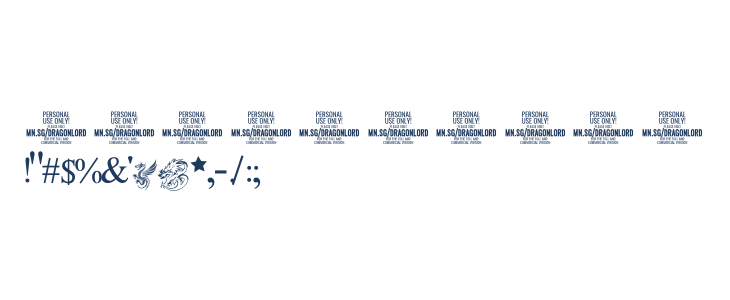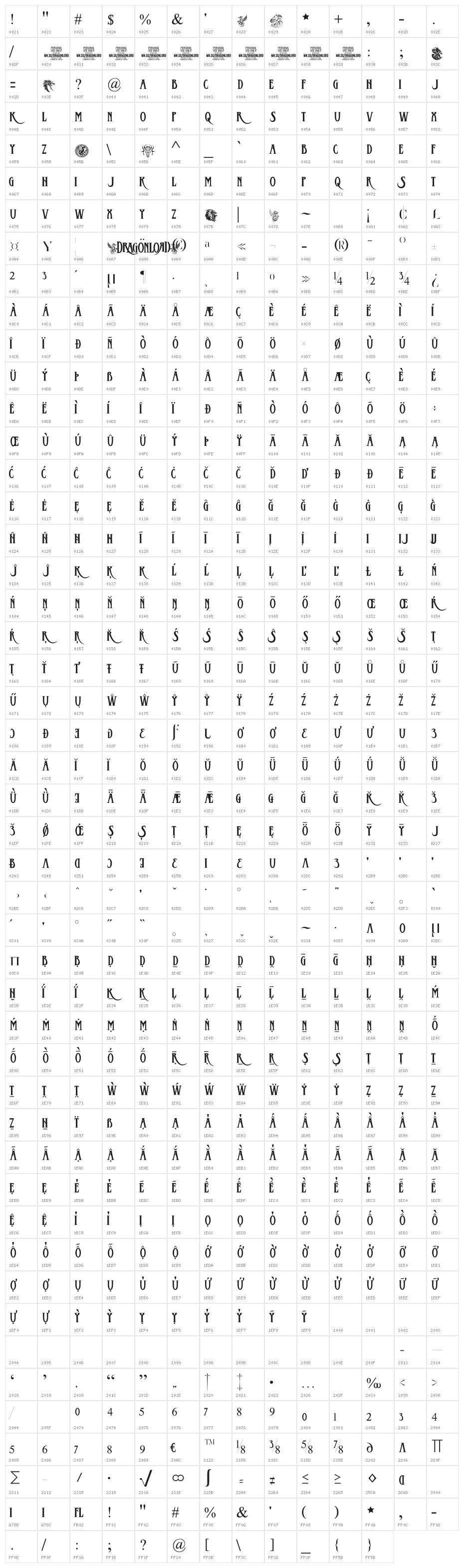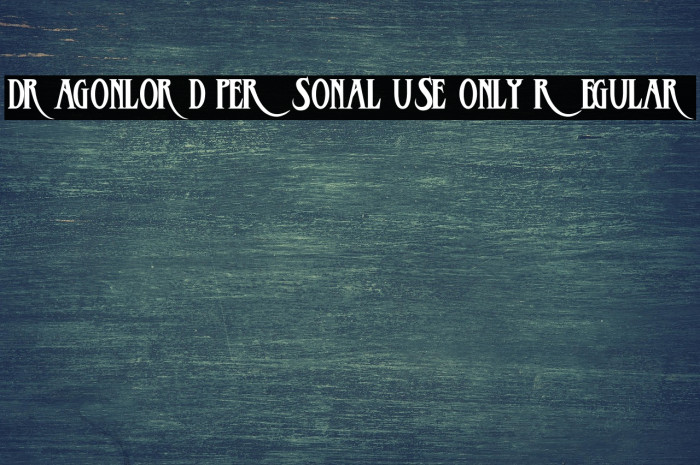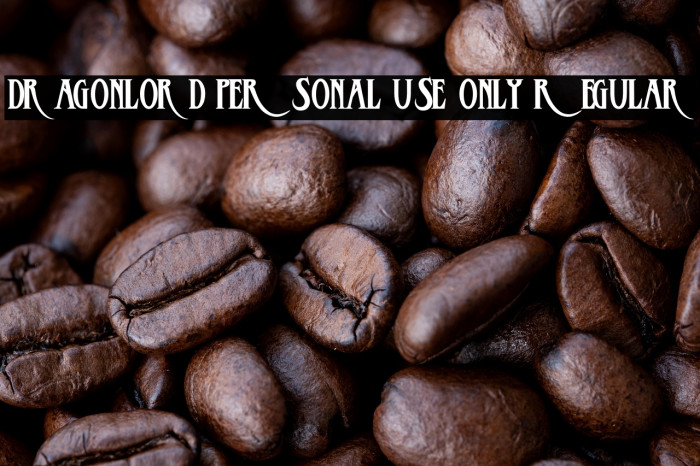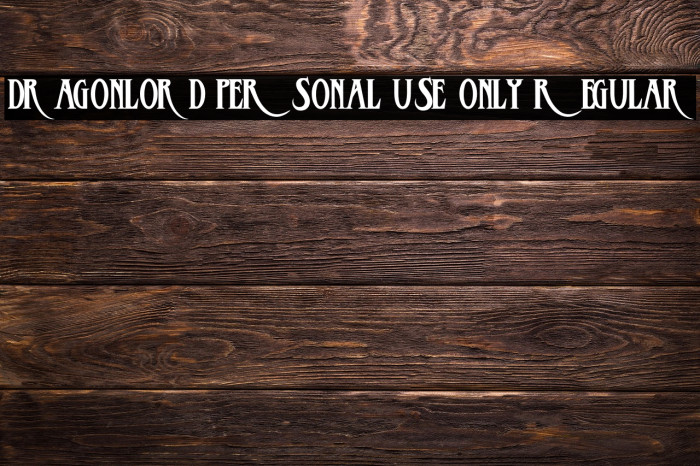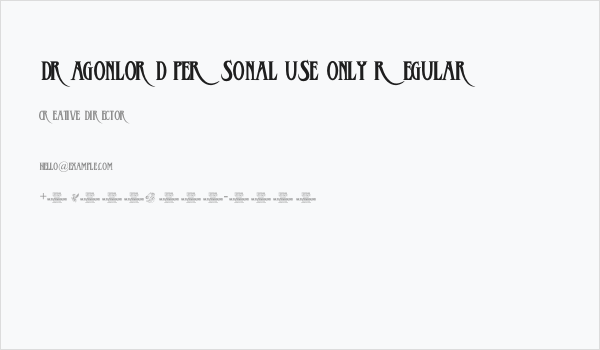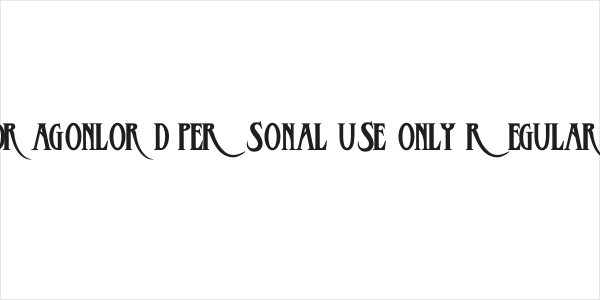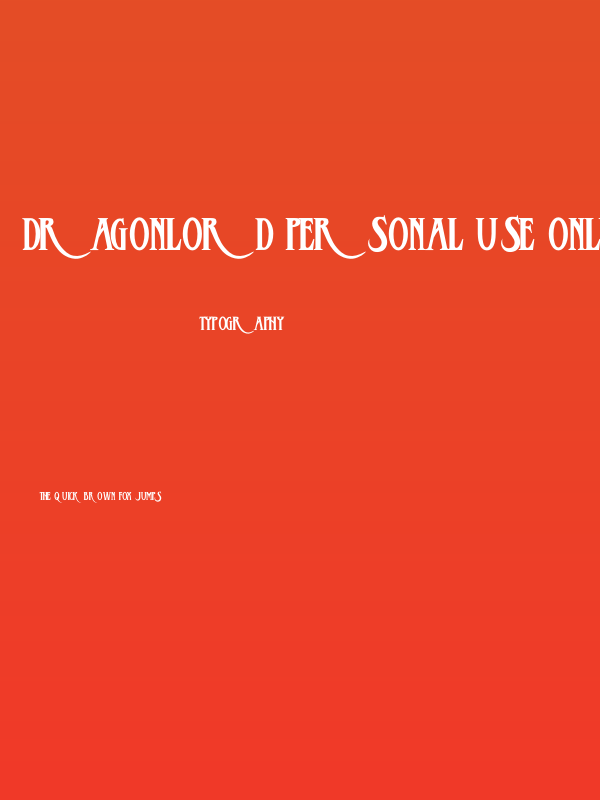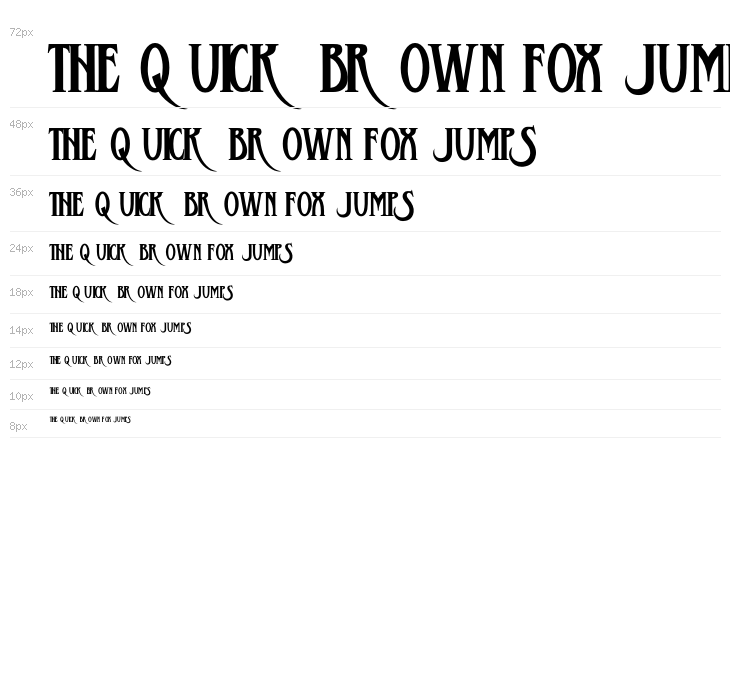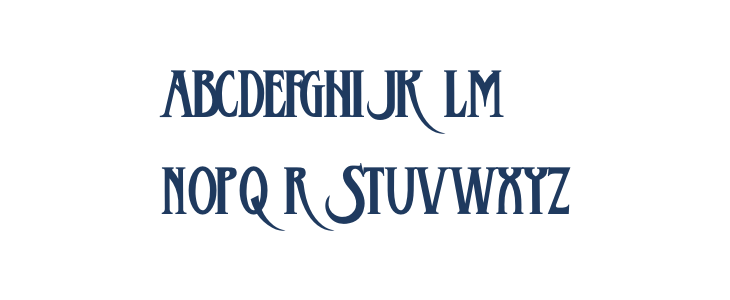
Dragonlord PERSONAL USE ONLY Regular Font
Dragonlord PERSONAL USE ONLY Regular Description
This font features a bold and dramatic style with sharp, angular serifs and a medieval flair. The uppercase letters are particularly striking, with elongated strokes and a sense of movement, reminiscent of calligraphic or gothic influences. The lowercase letters maintain the same boldness, offering a cohesive look throughout. Special characters, including punctuation and symbols, are designed with the same attention to detail, ensuring they match the overall aesthetic. This font is ideal for projects that require a touch of fantasy or historical elegance.
| Overall Style | Medieval, Decorative |
| Proposed Projects | Ideal for fantasy book covers, medieval-themed events, or role-playing game titles. |